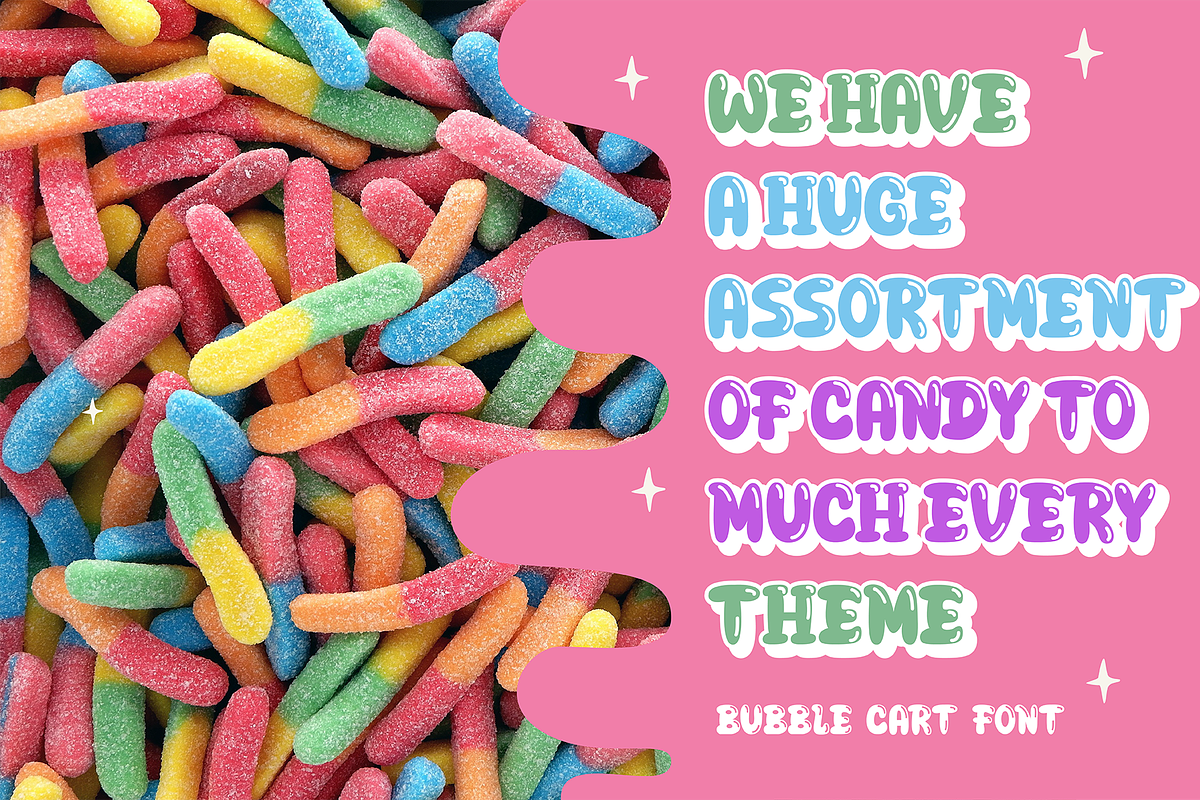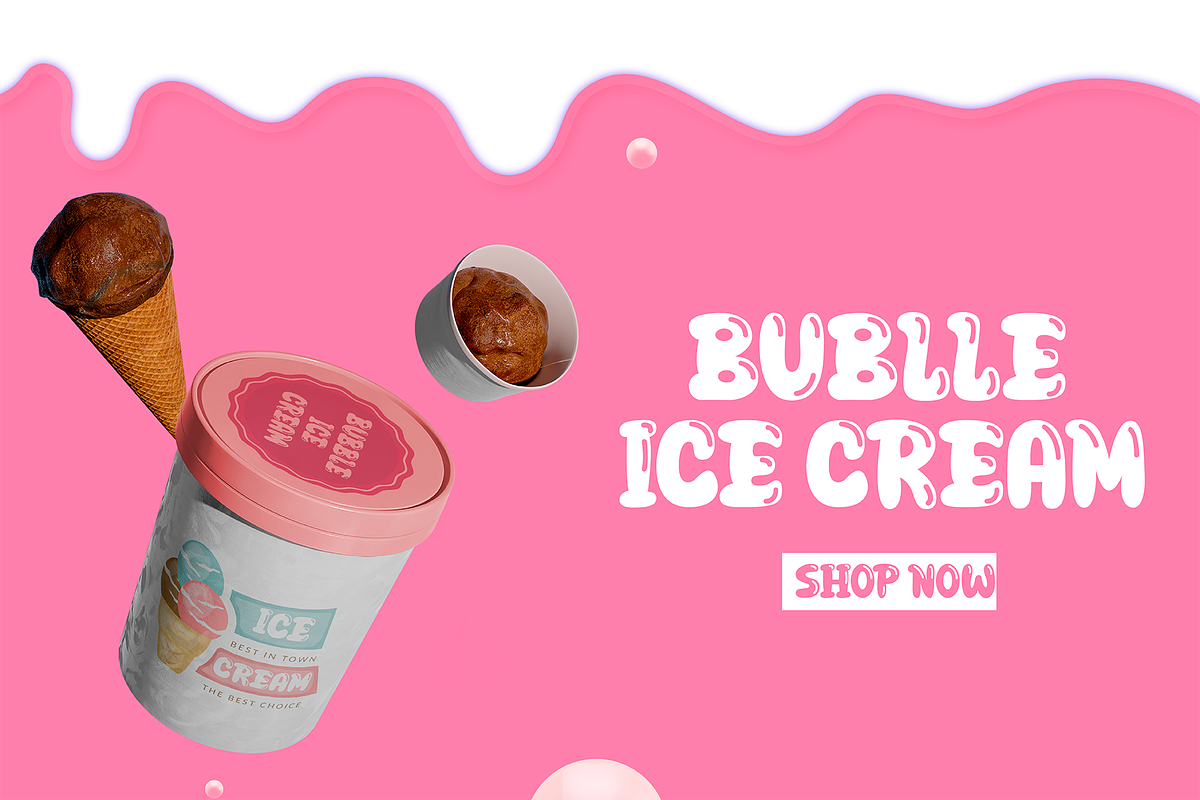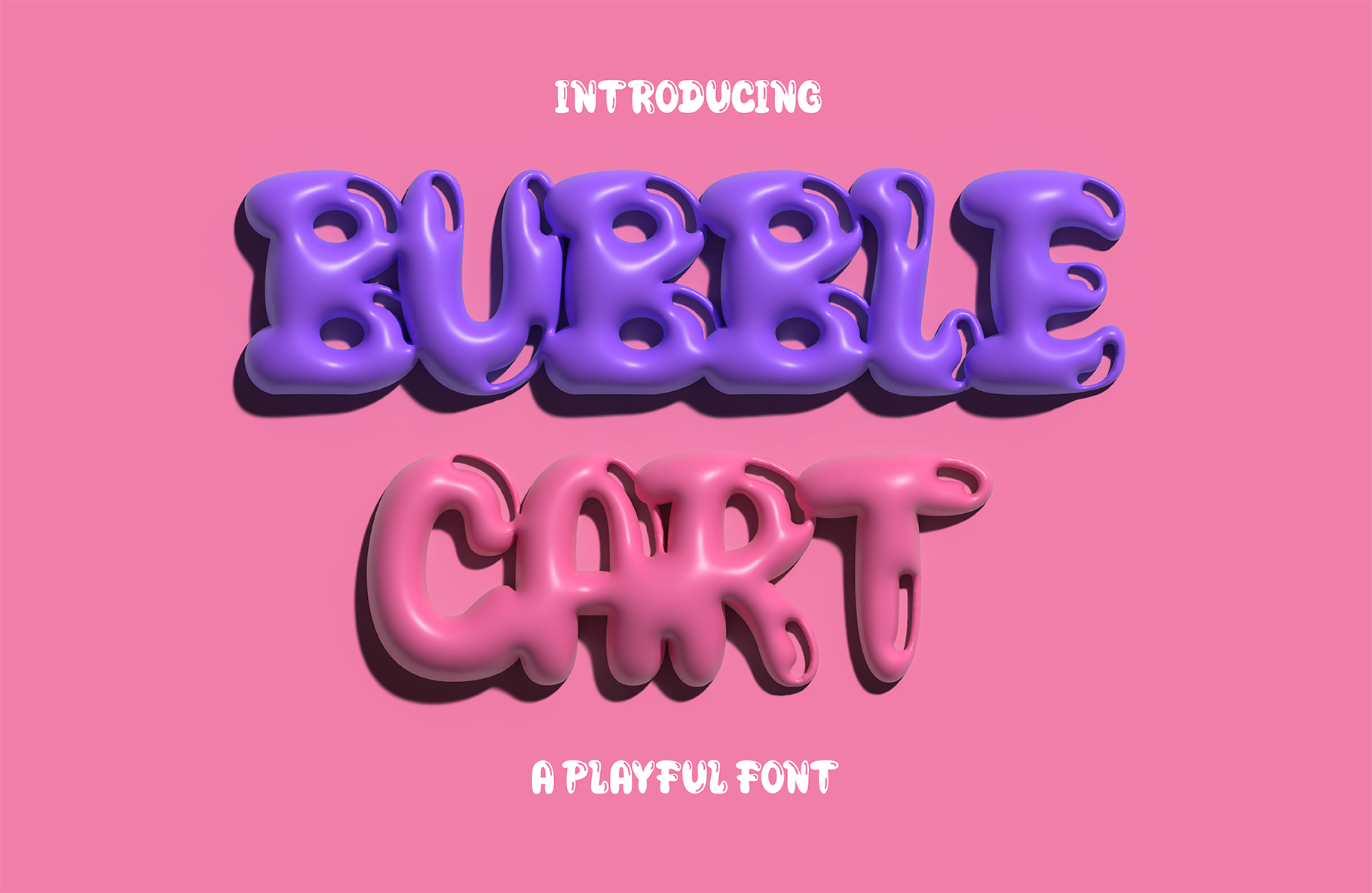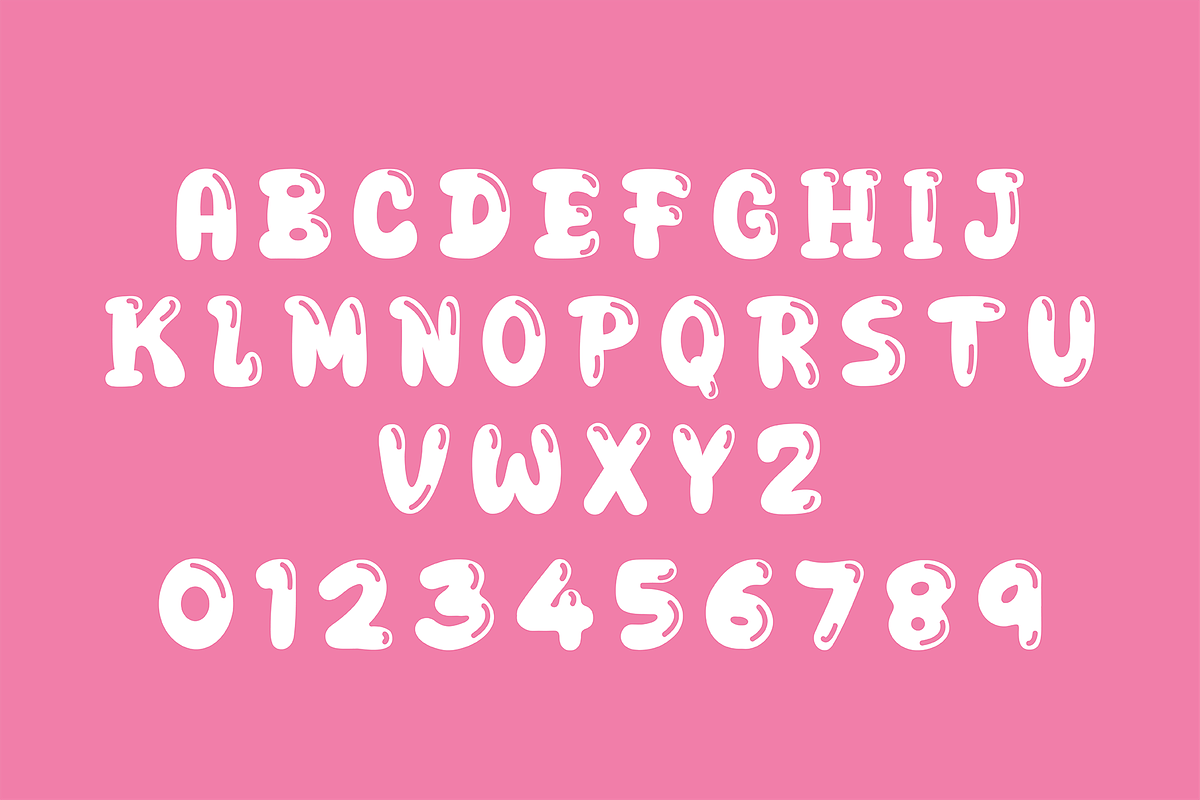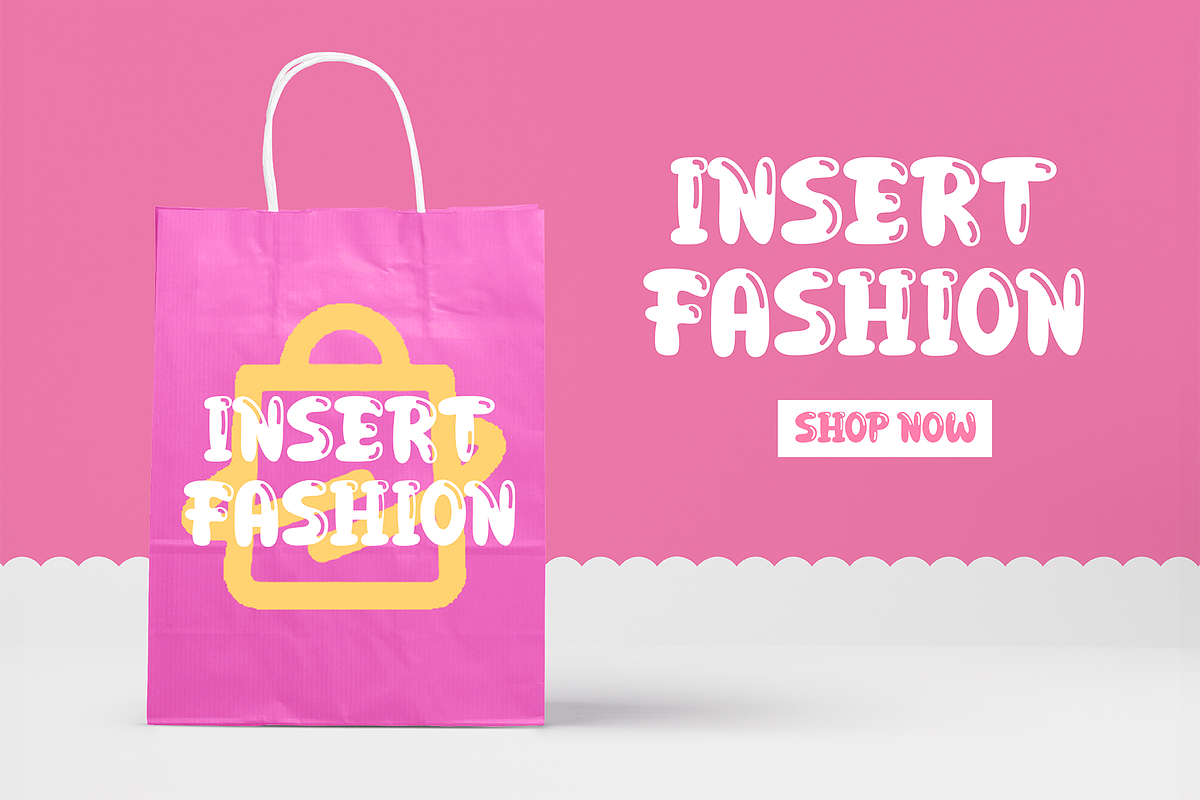
Bubble Cart Display Font
Introducing Bubble Cart a Playful, Groovy, and Bubbly Display Typeface, Fluffy, and Fun.. With its charming, rounded letters, it brings a cheerful vibe to any text. Perfect for expressing affection and happiness, this font is ideal for creating eye-catching titles, invitations, or social media posts.